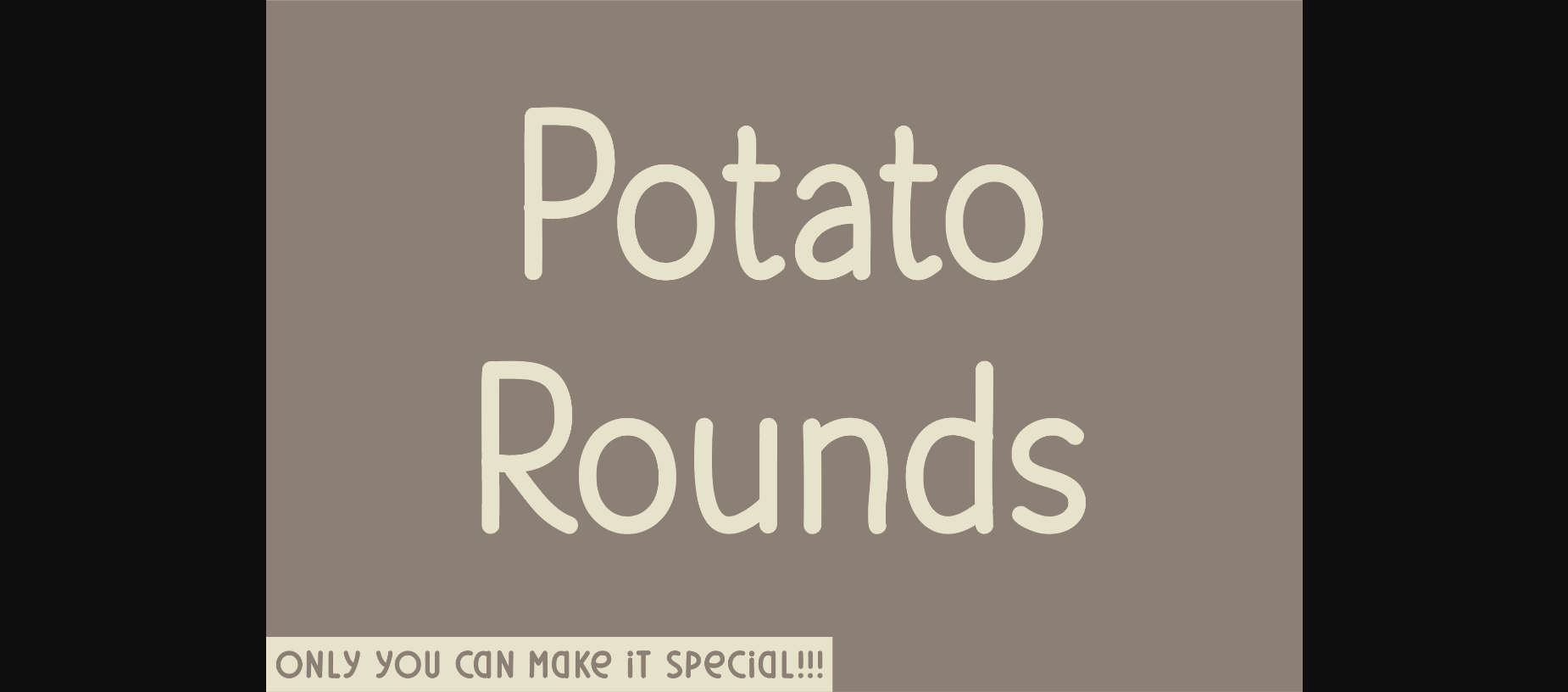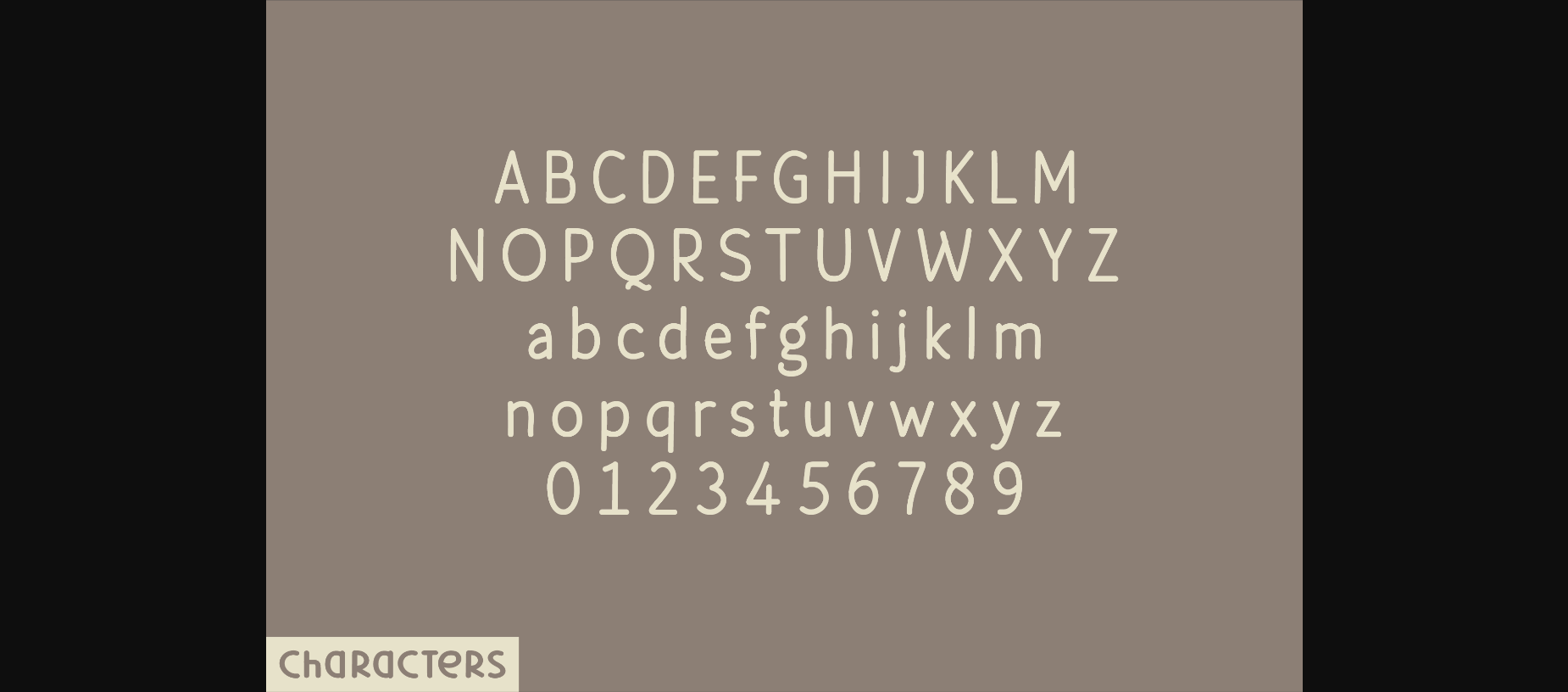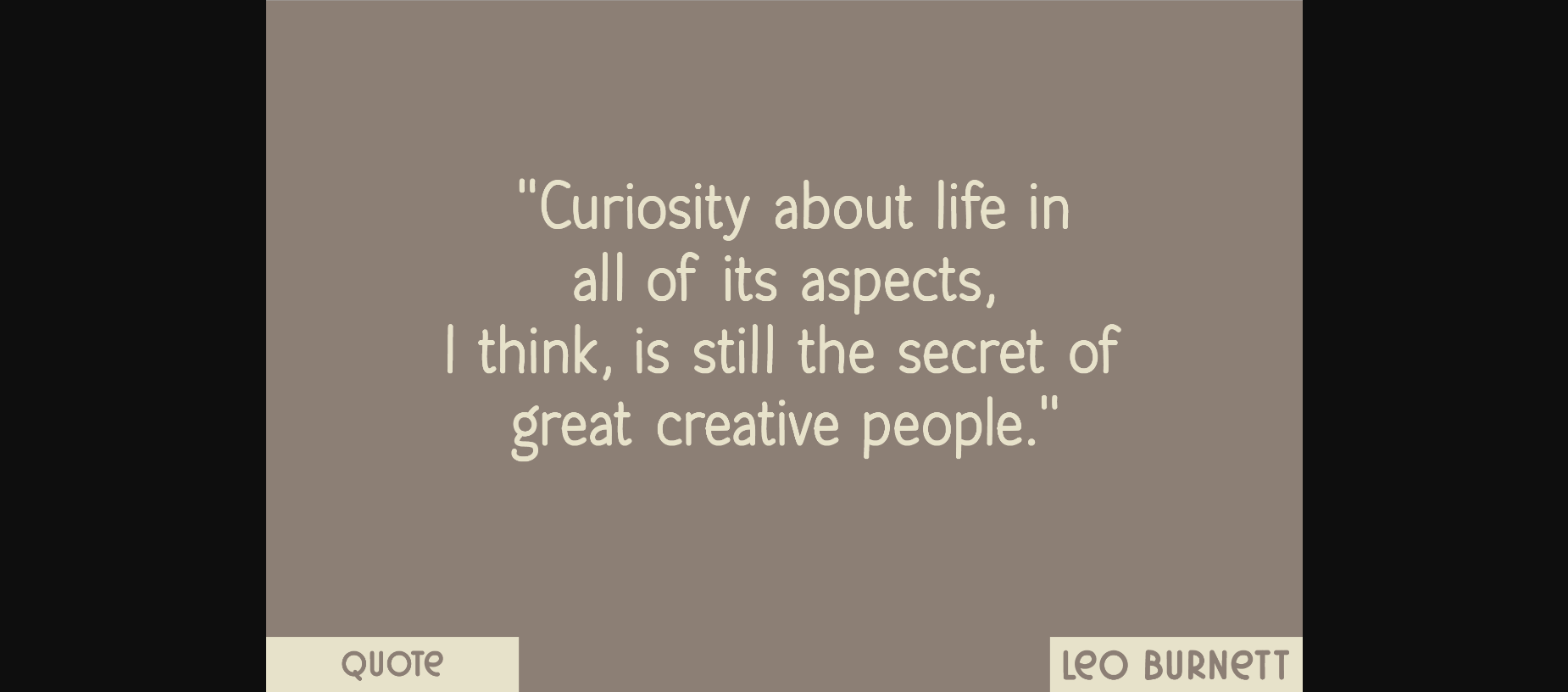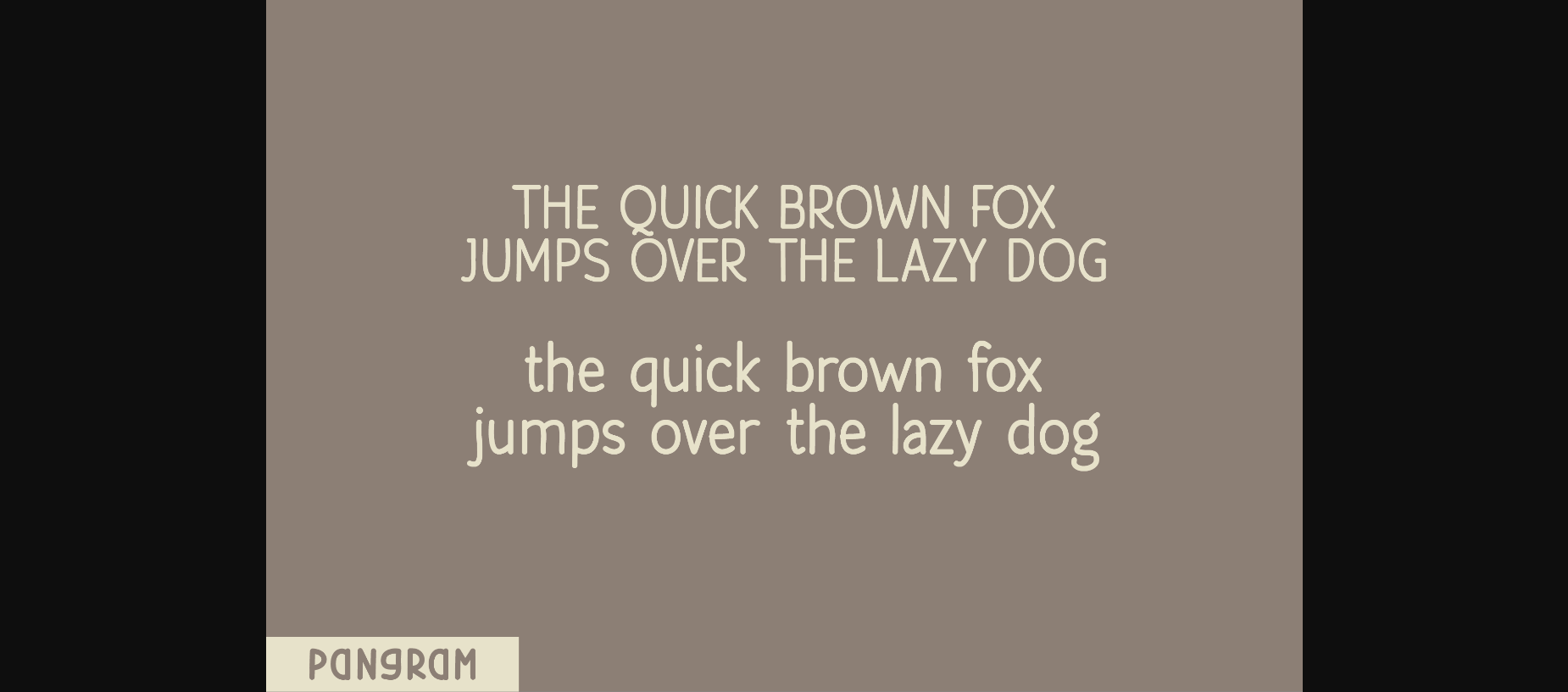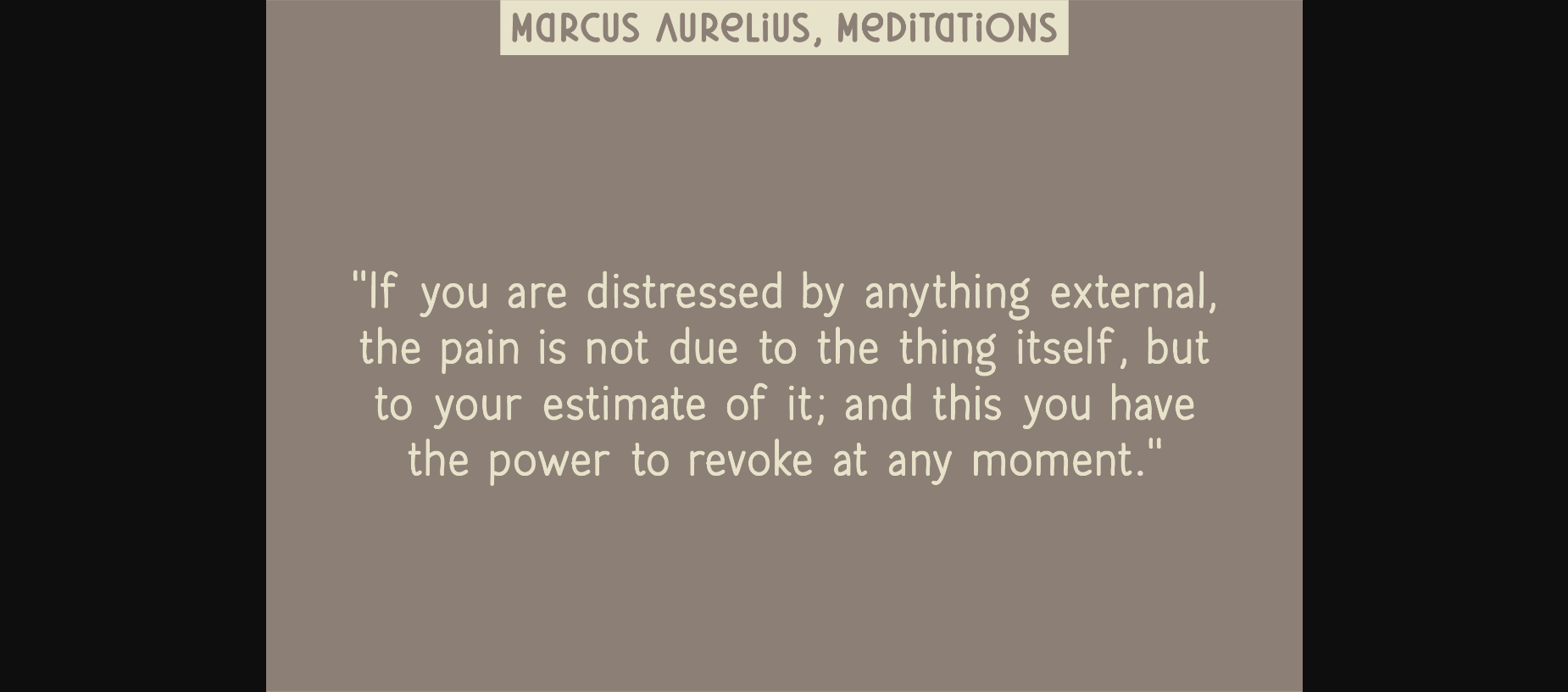
HomeSans Serif FontsPotato Rounds Font Sans Serif Fonts Potato Rounds Font FacebookXPinterestWhatsApp 1 of 7 ... Potato Rounds Font Poster 2... Potato Rounds Font Poster 3... Potato Rounds Font Poster 4... Potato Rounds Font Poster 5... Potato Rounds Font Poster 6... Potato Rounds Font Poster 7... About Potato Rounds Font Potato Rounds is an elegant and modern sans serif font. This minimalist and clean vibe can easily apply to your favorite designs such as book covers, magazines, social media posts, invitations, and so much more! DOWNLOAD NOW People also explored Deathblood Font Bakery Brush Font Brew House Font Gelisyah Font Hello Bride Font Magthina Blessing Font Stramylla Font Danvilly Font Sans Rope Font 417 0 TagsPotato Rounds Font Previous articleRedbean FontNext articleRustic Summer Font LEAVE A REPLY Cancel reply Comment: Please enter your comment! Name:* Please enter your name here Email:* You have entered an incorrect email address! Please enter your email address here Website: Save my name, email, and website in this browser for the next time I comment. Personal Use Free Still Time Personal Use Free Read more about this font Bulky Personal Use Free Read more about this font Hello Sister Personal Use Free Read more about this font Persephone Free Personal Use Free Read more about this font BLOG How to Cut Any Font on Cricut: Convert a Font to SVG (Free) Turn any font into a clean SVG so it cuts crisp on Cricut - a quick 3-step workflow using a free font-to-SVG tool. Exploring Font Trends Best Fonts for YouTube Videos: Make Your Thumbnails Stand Out Fonts That Capture the Spirit of New York City